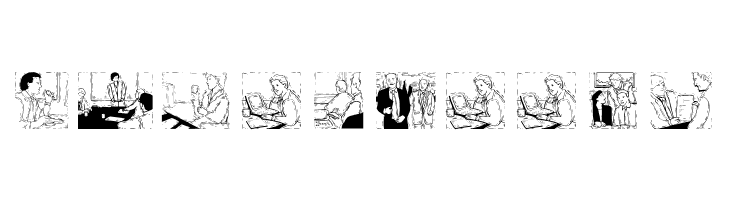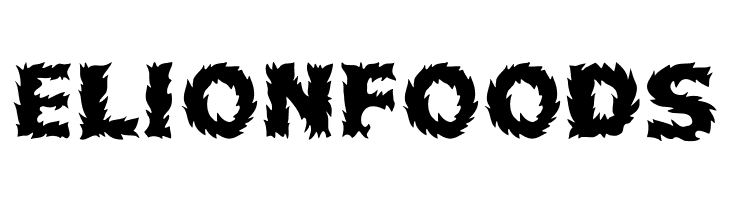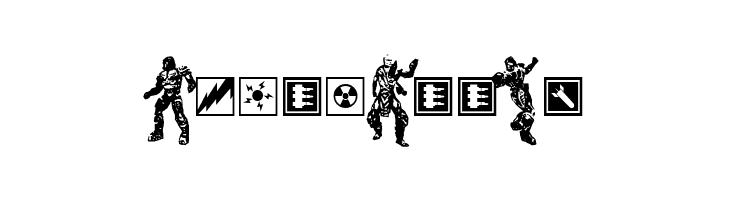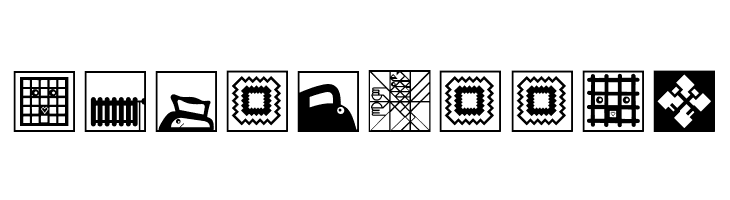
Illustrative display font featuring business people in office scenes.
A playful pictogram dingbat set with various themed icons.
A bold, flame-inspired decorative font with dynamic, jagged edges.
A highly decorative and abstract font with intricate geometric patterns.
A detailed, game-themed dingbat font with character and weapon silhouettes.
A bold, geometric pictogram icon set with a technical and utilitarian feel.
A bold pictogram font with household and geometric icons.
A collection of scout-themed icons with bold, illustrative designs.